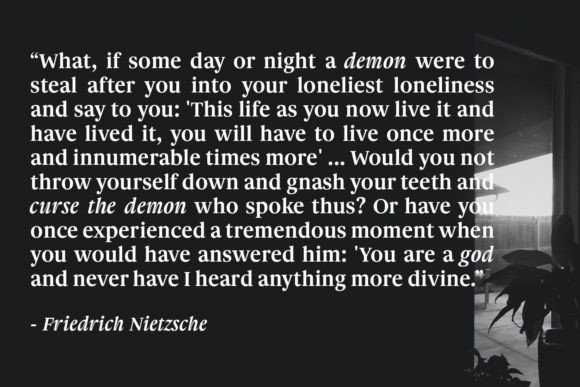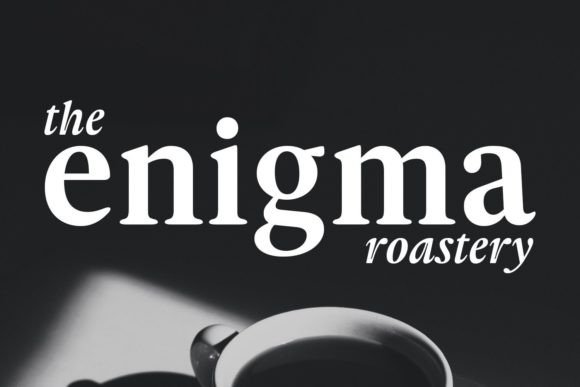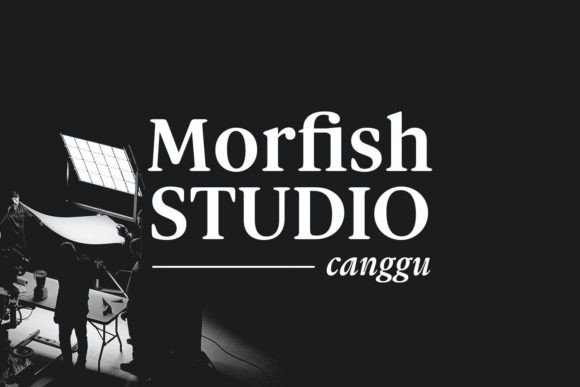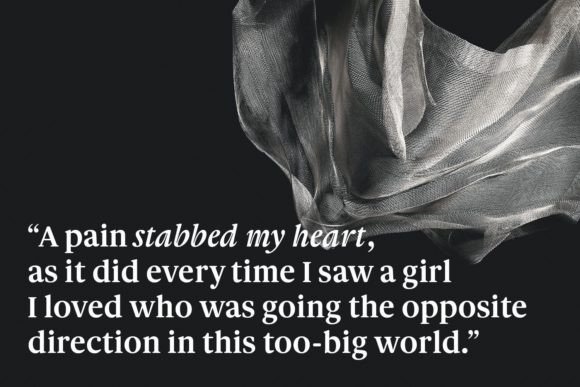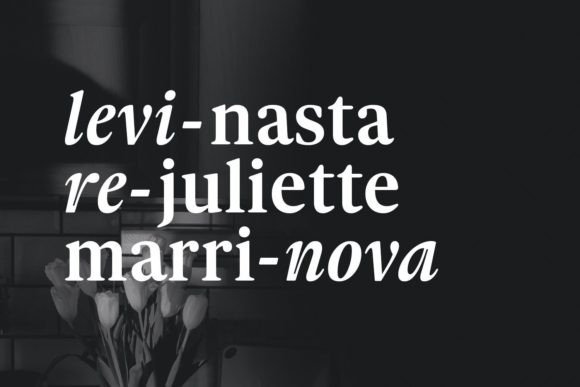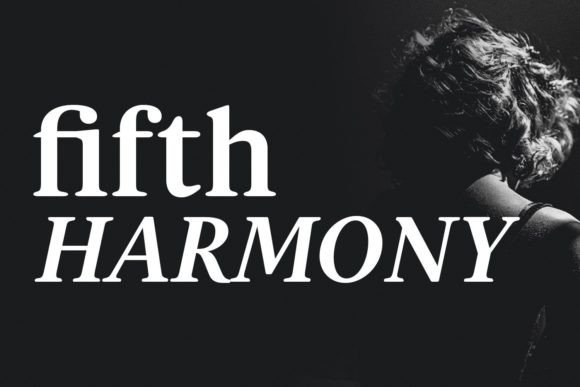
Unleashing Creativity with Frasha Font
As a designer, you’ve likely found yourself stuck in a creative rut, staring at a blank page with no idea where to begin. The cursor blinks, taunting you to start, but the words just won’t come. That’s where the magic of typography comes in – a well-chosen font can be the spark that ignites your creativity. For many designers, that spark is Frasha Font, a modern serif font that combines elegance with a touch of whimsy.
With its medium-soft edge stroke and playful ligatures, Frasha Font is perfect for logo design, social media, movie titles, and more. Its versatility makes it an invaluable tool for designers looking to add a touch of personality to their work. And with its PUA encoding, accessing the font’s many glyphs and swashes is a breeze, allowing you to create stunning work with ease.
- Unique Characteristics: Frasha Font features a modern and elegant design with a unique blend of geometric and organic elements, making it perfect for creative and artistic applications
Frasha Font Review
As a designer, I was excited to dive into the Frasha Font and see what it has to offer. ✨ The first thing that caught my eye was the unique and playful style of the font. It’s perfect for adding a touch of whimsy to your designs, and the cursive flair adds a level of sophistication that’s hard to find in other fonts.
Here are some of the things that work well with Frasha Font:
- ✨ Unique and playful style
- ✨ Great for adding a touch of whimsy to designs
- ✨ Cursive flair adds sophistication
- ⚠️ Limited character set – may not be suitable for longer texts
- ⚠️ Not ideal for body text – best used for headings and titles
- ⚠️ May not be accessible on all devices or browsers
Overall, I think Frasha Font is a great addition to any designer’s toolkit. While it may have some limitations, its unique style and playful flair make it perfect for adding a touch of personality to your designs. With a little creativity and experimentation, you can really make this font shine.
Tips for Getting the Most Out of Frasha Font
Here are a few tips to help you get the most out of Frasha Font:
- Experiment with different font sizes and styles to create visual interest.
- Use Frasha Font in combination with other fonts to create a unique and eye-catching design.
- Adjust the font color to match your design’s color scheme.
Frasha Font is a versatile font that can be used in a variety of design contexts, including:
- Headlines and titles
- Body text
- Logos and branding
- Infographics and charts
Alternatives to Frasha Font
Great Vibes Font is a modern, elegant script font ideal for headings, titles, and short paragraphs. It’s perfect for creating a sophisticated and stylish look. Use it when you want to add a touch of luxury and elegance to your design.
Great Vibes Font is similar to Frasha Font in its cursive style, but it’s more refined and polished. While Frasha Font has a more playful and whimsical feel, Great Vibes Font is more suitable for formal and professional designs.
Carolyna Pro Font is a beautiful, high-end script font that’s perfect for creating eye-catching headings and titles. It’s ideal for luxury brands, high-end fashion, and premium products. Use it when you want to convey sophistication and exclusivity.
Carolyna Pro Font is more elegant and refined compared to Frasha Font. While Frasha Font has a more casual and approachable feel, Carolyna Pro Font is more suitable for high-end and premium designs.
Alex Brush Font is a elegant and refined script font that’s perfect for headings, titles, and short paragraphs. It’s ideal for creating a sophisticated and stylish look. Use it when you want to add a touch of elegance and sophistication to your design.